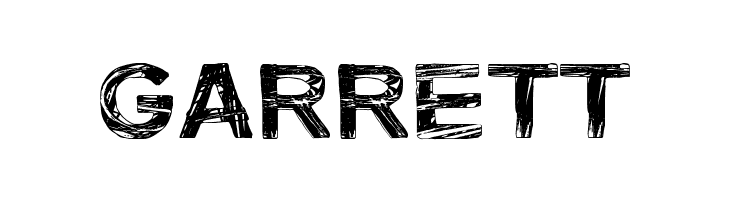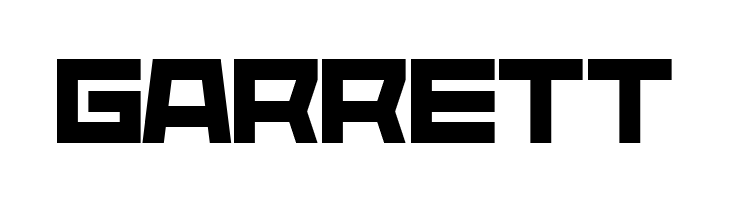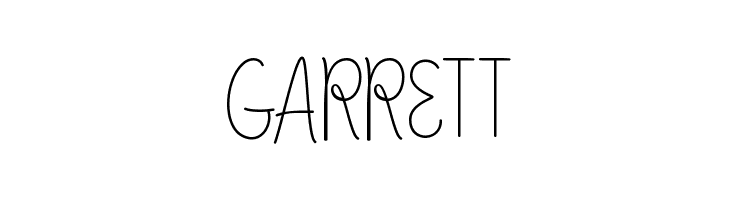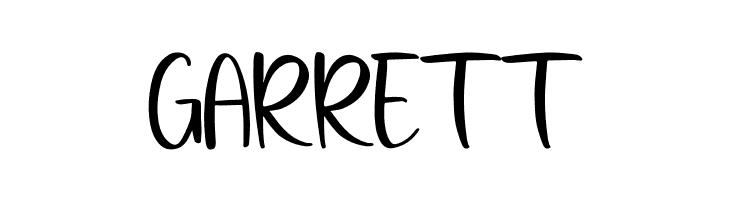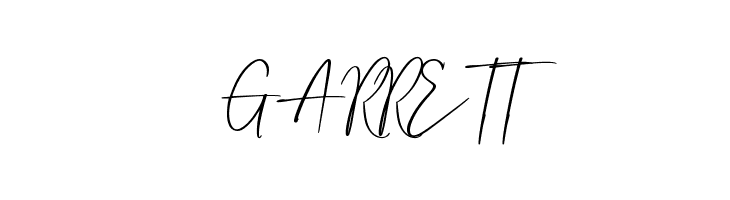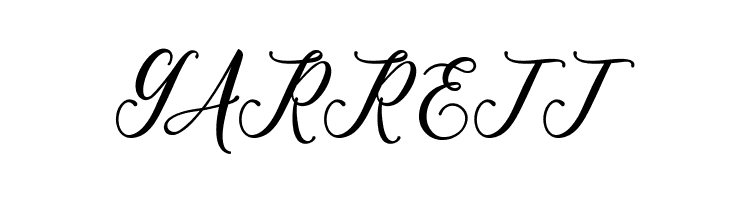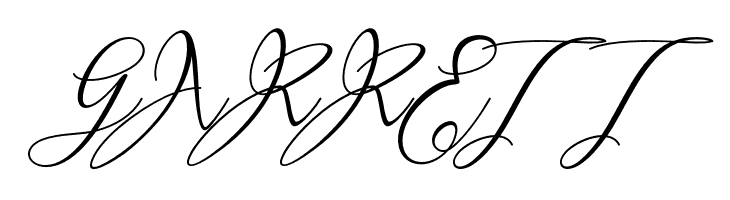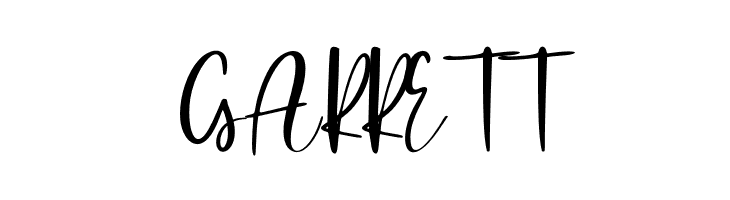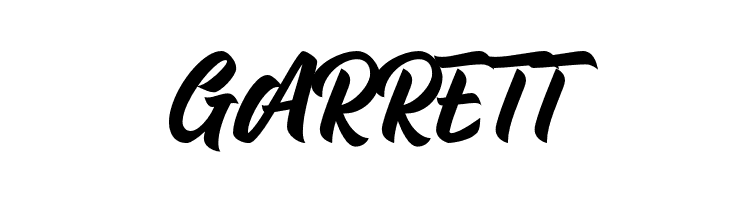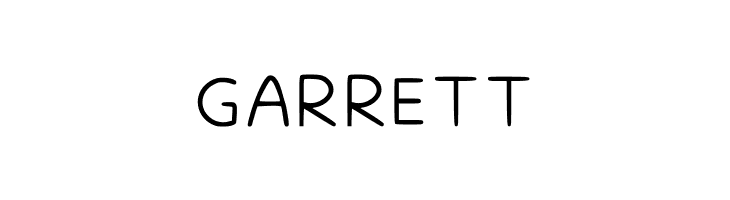
A bold, flowing script font with elegant, interconnected letters.
A festive and elegant script font with medium contrast and flowing strokes.
An elegant, cursive font with flowing, ornate strokes.
A lively and elegant script font with flowing, interconnected letters.
A modern geometric font with bold, structured uppercase and harmonious lowercase letters.
An elegant, flowing cursive font with ornate uppercase letters and consistent rhythm.
An elegant and flowing script font with intricate loops and swashes.
A playful, whimsical script font with a hand-drawn, cursive style.
A bold, expressive script font with fluid, cursive strokes.
A whimsical handwritten font with elegant, flowing cursive letterforms.
A charming and elegant script font with a handwritten feel.
A playful and whimsical font with heart-shaped elements and smooth, rounded strokes.
A dynamic and elegant script font with fluid, sweeping strokes.
A lively, expressive handwritten font with dynamic strokes.
A cursive, handwritten font with elegant loops and flowing connections.
A bold, graffiti-inspired font with playful, dynamic characters and unique heart-shaped elements.
A modern, elegant script font with flowing, cursive characters.
A whimsical handwritten font with heart embellishments and tall, narrow letters.
A bold, geometric font with a futuristic and modern design.
A bold, sketch-like font with an artistic, hand-drawn appearance.
An elegant, flowing script font with intricate, interconnected letterforms.
An elegant, flowing script font with cursive, handwritten style.
An elegant, cursive font with ornate uppercase and smooth lowercase letters.
A playful, casual handwritten font with smooth curves and a friendly appearance.
A bold, decorative font with heart motifs integrated into each character.
A heart-themed decorative font with glyphs made from clustered heart shapes.
A bold, decorative font with heart motifs, perfect for romantic and playful designs.
A jagged, edgy font with sharp, thorn-like characters.
An elegant, flowing script font with a romantic and sophisticated style.
An elegant, flowing script font with cursive letterforms and graceful swashes.
A bold, distressed font with a textured, vintage appearance.
A decorative font with characters inside heart shapes pierced by arrows.